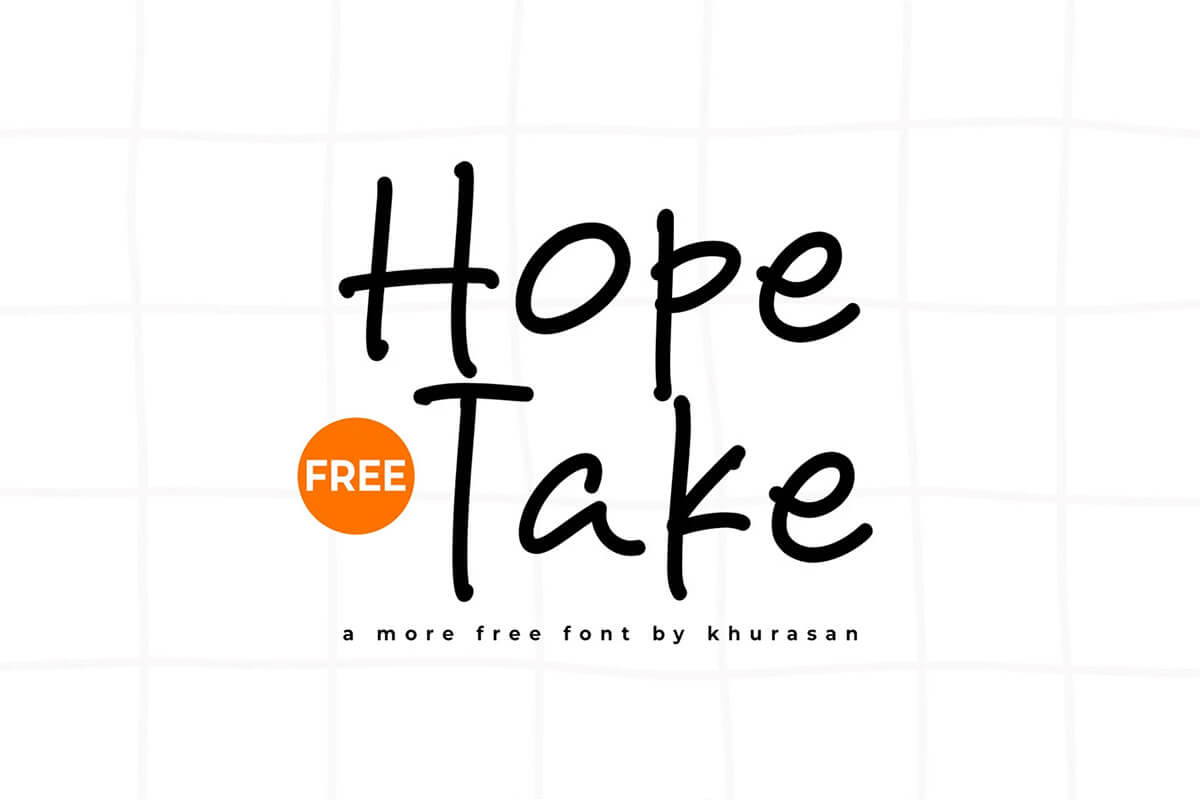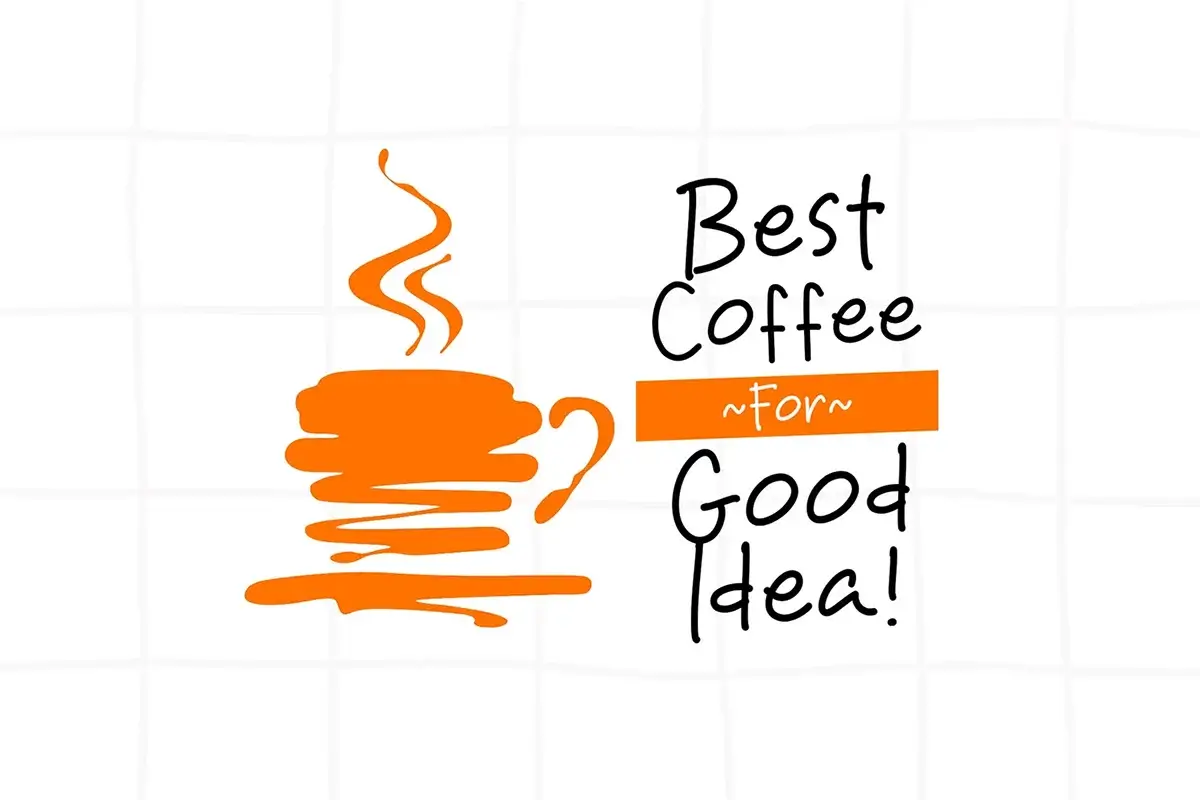
Hope Take Font – Fancy Typeface
Hope Take Font is a unique, stylish and cool fancy typeface by Khorasan! Its playful, handwritten vibe is perfect for adding a casual, creative touch to your projects. Grab it and let your designs shine!
This font is great to use for children book, branding, posters, wedding invitations, headings, t-shirts, letterheads, signage, labels, badges, subheadings, branding, craft design, packaging, love letters, or anything that needs a fun and happy look!